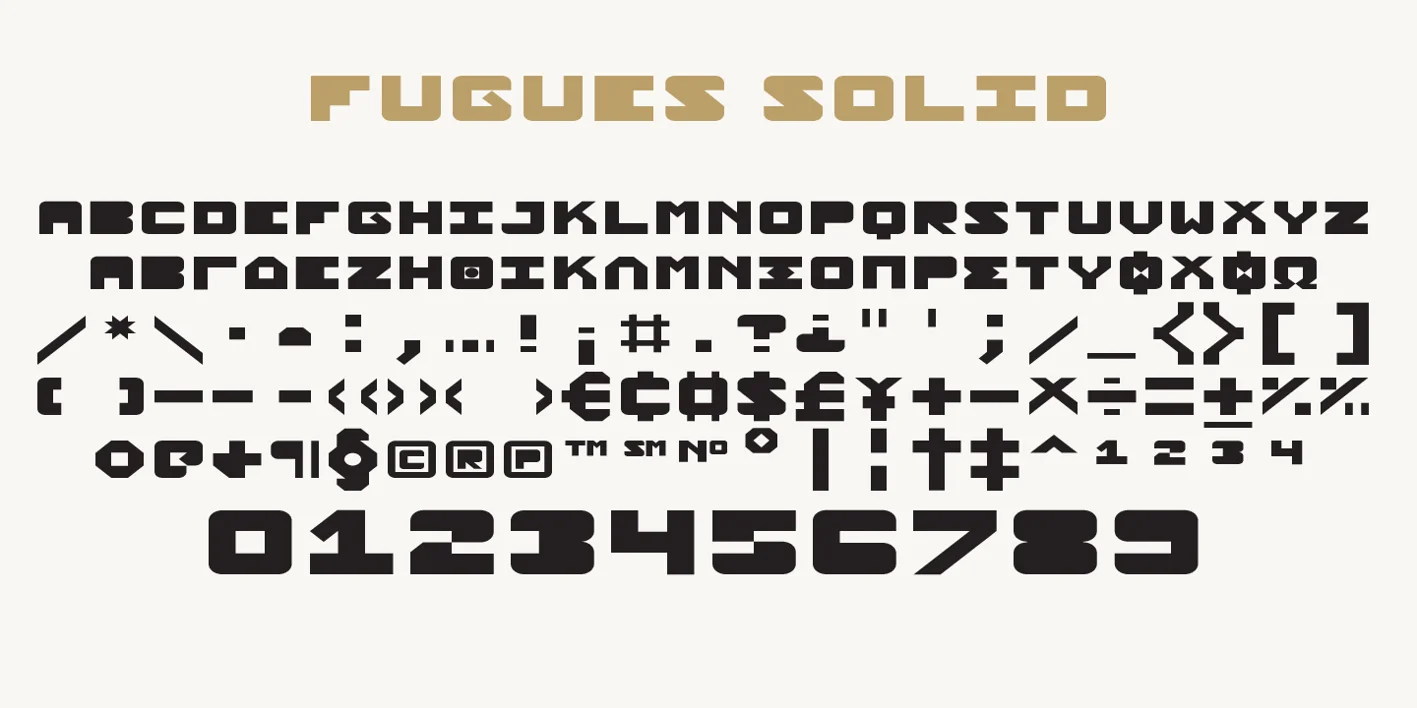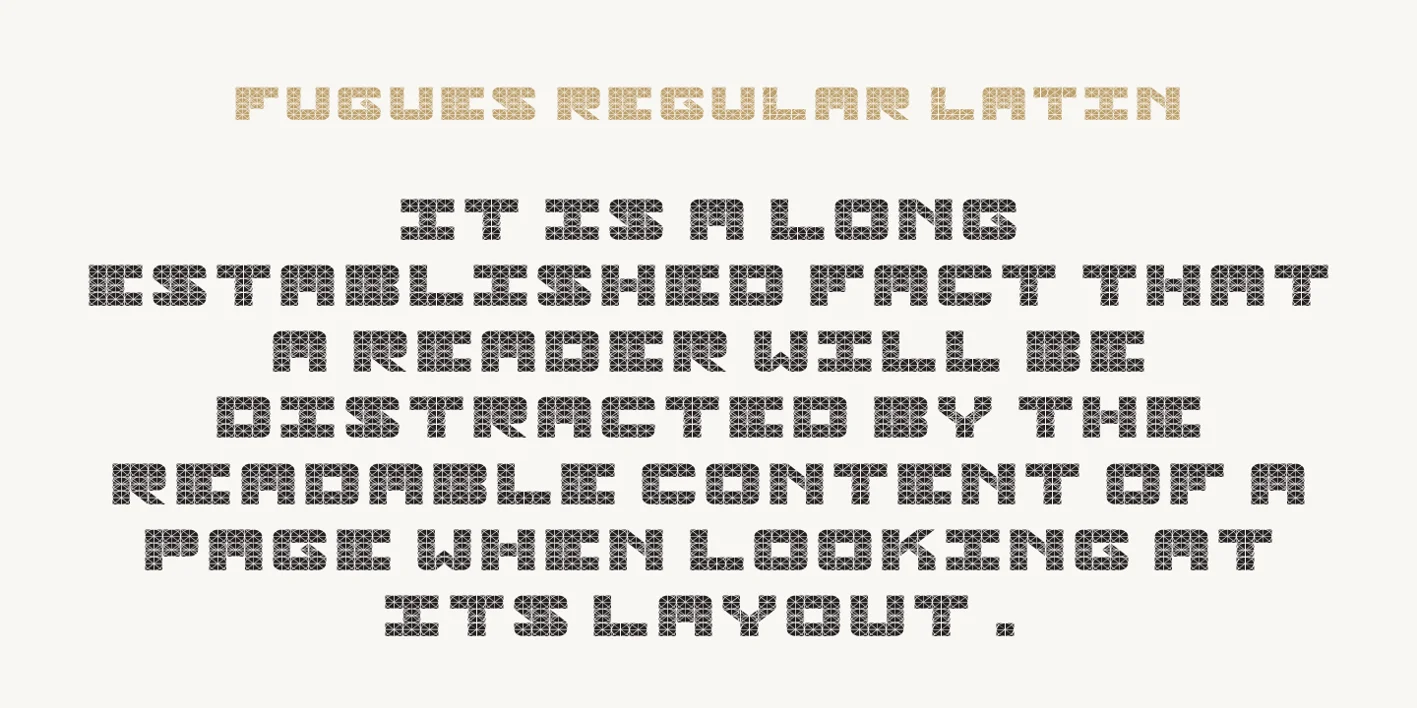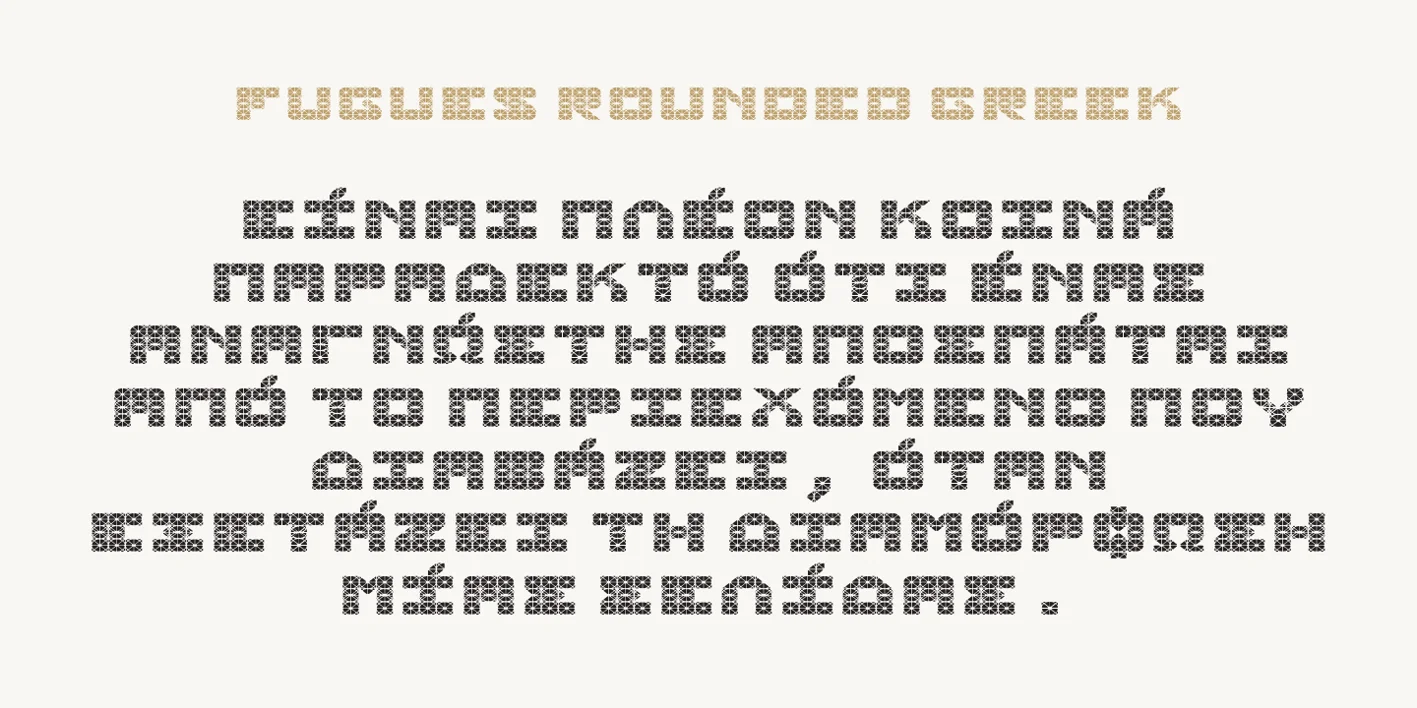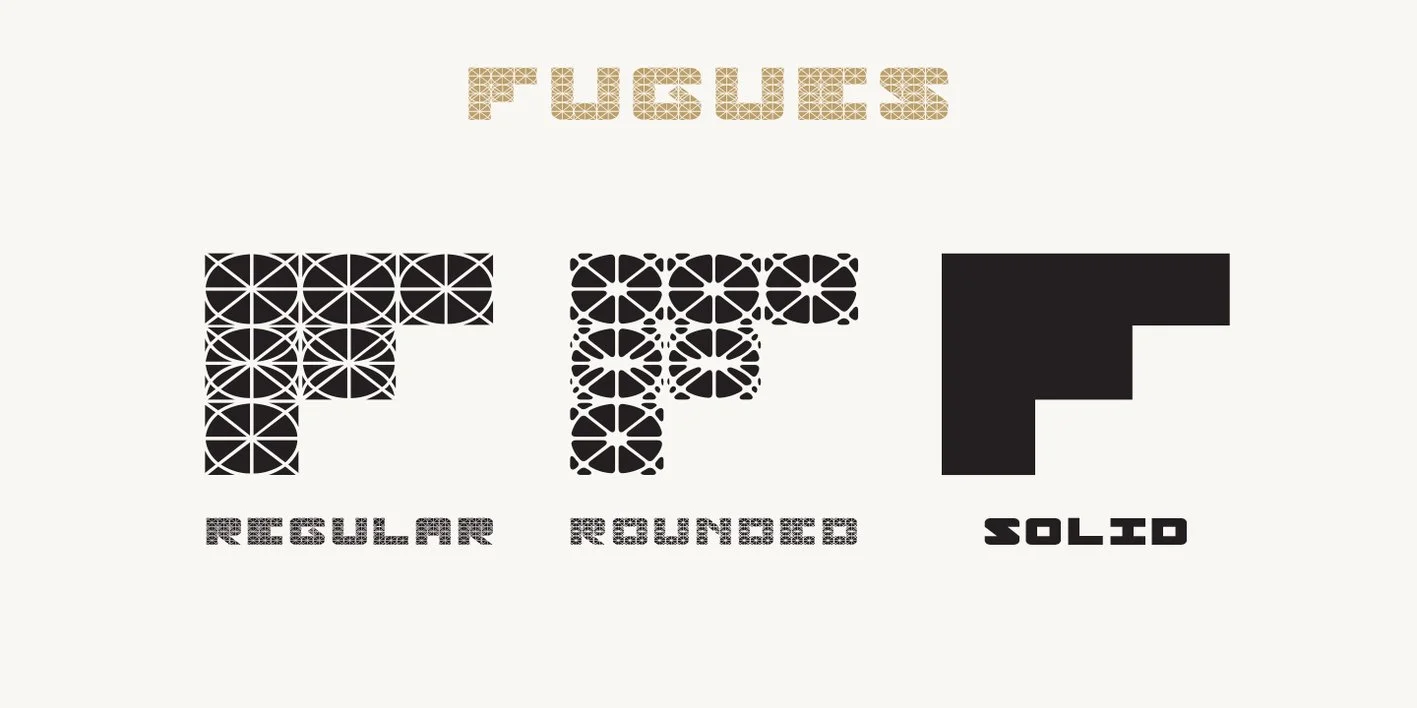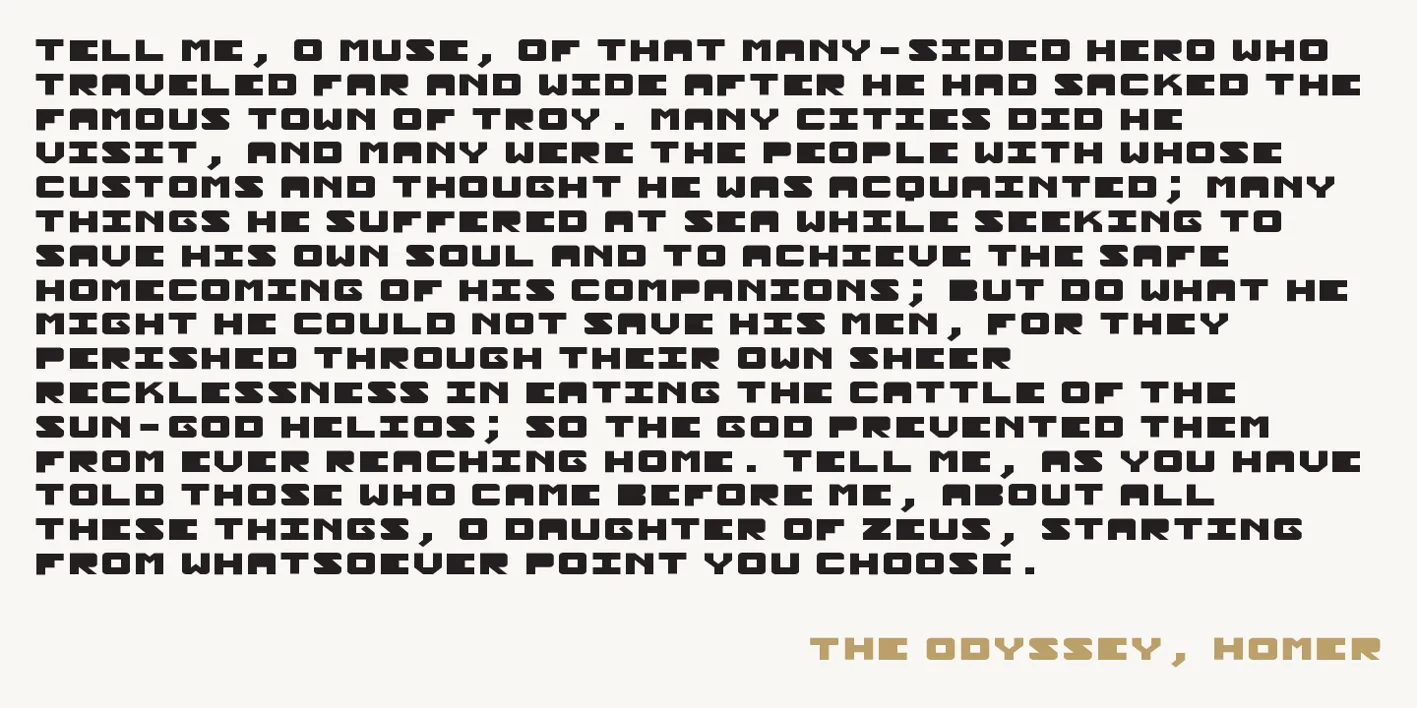
Fugues Font
There is a particular satisfaction in finding a typeface that delivers distinctive character without sacrificing readability without compromise. Fugues consistently provides it. The typeface brings a versatile sensibility to a broad range of creative disciplines, with strong typographic hierarchy support that holds up whether the work is print-first or screen-first.
In practice, Fugues proves particularly effective for logo design, signage systems, environmental graphics, brand identity systems, packaging design. Designers reaching for it find that the type decisions feel resolved rather than laboured — a useful quality when client timelines are tight.
The range of applications extends to editorial layouts, advertising campaigns, annual reports, web design. That breadth is deliberate: the proportions and spacing were stress-tested across a wide range of mock briefs before the typeface was finalised.
Pairing Fugues with a contrasting serif or a neutral grotesque gives mixed-format layouts a clear visual grammar without requiring constant size adjustments to establish hierarchy.
Motion designers building title sequences and lower thirds find Fugues a reliable choice for projects that demand both personality and restraint. The design avoids the self-conscious quirkiness that dates quickly, settling instead for considered distinctiveness that holds up over time.